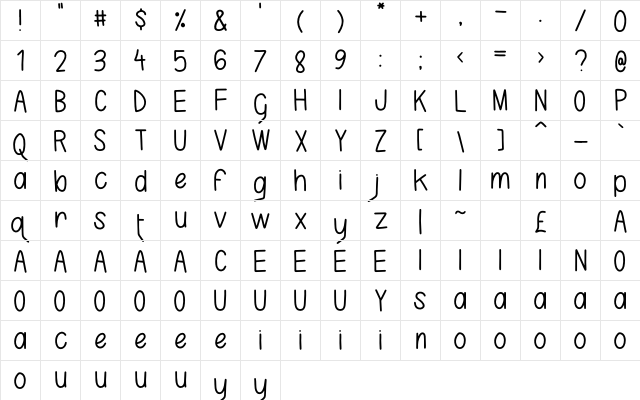
Karla Camilla Regular
Design Context for Karla Camilla Typeface
Karla Camilla is a composed and adaptable typeface that performs quietly and consistently across a wide range of design contexts.